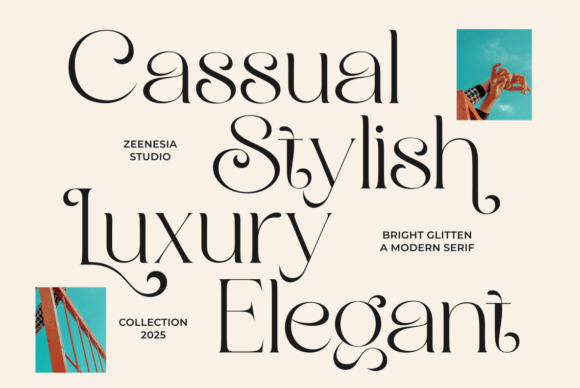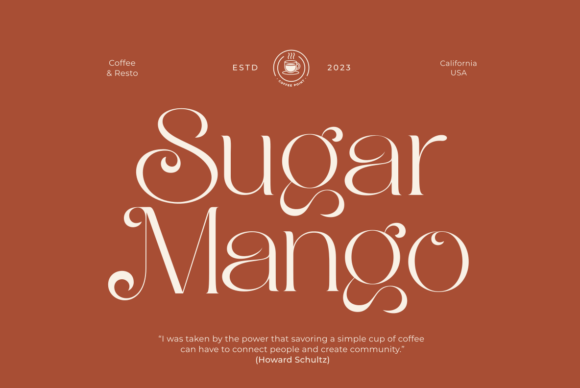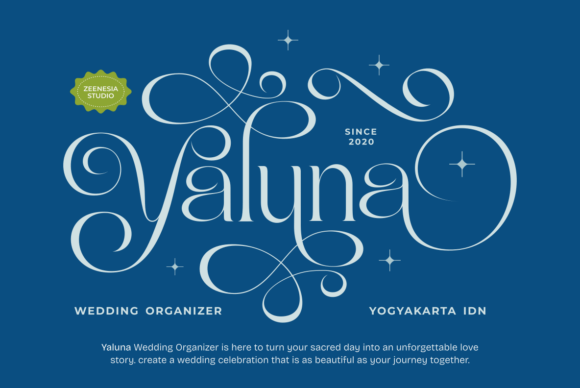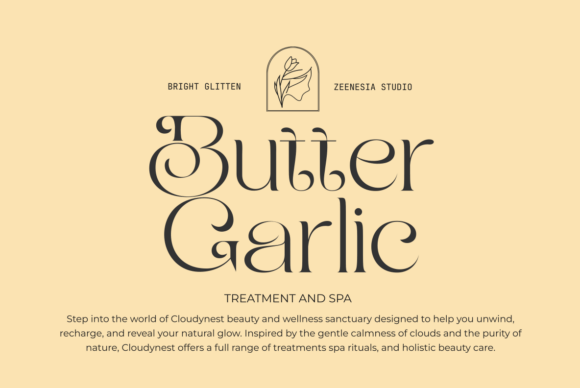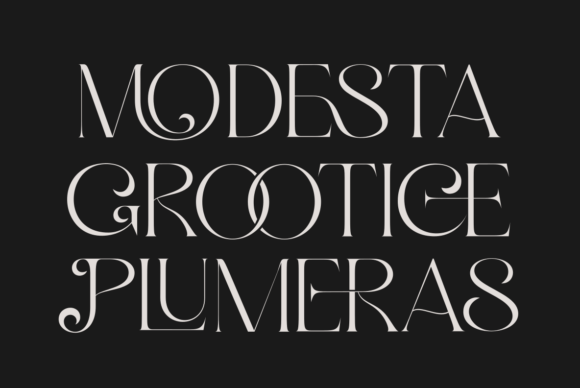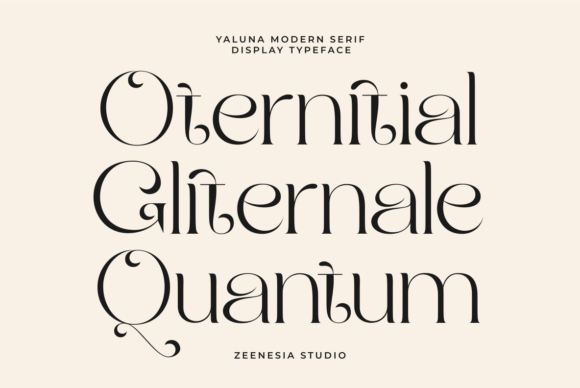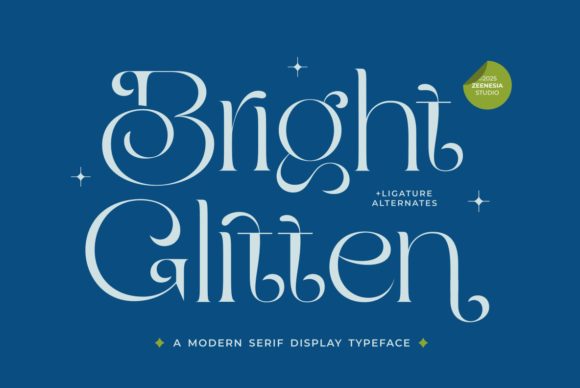
Introducing Bright Glitten: The Epitome of Elegance and Radiance in Typography
Step into the world of elegance and radiance with Bright Glitten, a modern serif display typeface that is designed to shine in every project. This stunning font is the perfect blend of sophistication and creativity, making it an ideal choice for designers and crafters looking to add a touch of luxury to their work.
A Masterpiece of Modern Typography
Bright Glitten is a thoughtfully crafted typeface that boasts graceful curves, stylish ligatures, and refined alternates. Each letter is meticulously designed to capture the perfect balance between sophistication and creativity, making it perfect for a wide range of applications, including branding, editorials, logos, and high-end packaging.
One of the standout features of Bright Glitten is its modern serif structure, which glimmers with personality and gives text a timeless yet contemporary feel. The font’s elegant design makes it perfect for use in fashion campaigns, invitations, and elegant stationery, ensuring that your words shimmer with style.
What sets Bright Glitten apart from other typefaces is its versatility. The font offers a range of alternate characters and special ligatures, providing endless combinations to make your work stand out. Whether you’re looking to add a touch of sparkle to your typography or create a bold statement, Bright Glitten has got you covered.
The font’s stylish ligatures are a particularly noteworthy feature, allowing you to create beautiful, flowing text that is sure to capture the attention of your audience. With Bright Glitten, you can add a level of sophistication and elegance to your designs that is hard to match.
Bright Glitten is a font that is designed with designers and crafters in mind. Its modern serif structure and elegant design make it perfect for use in a wide range of projects, from high-end branding and packaging to editorial design and digital marketing.
Whether you’re a seasoned designer or just starting out, Bright Glitten is a font that is sure to inspire. Its versatility and range of features make it an ideal choice for anyone looking to add a touch of luxury and sophistication to their work.
Key Features of Bright Glitten
- Modern Serif Display Typeface: Bright Glitten is a modern serif display typeface designed to make a statement.
- Stylish Ligatures: The font features stylish ligatures that allow you to create beautiful, flowing text.
- Refined Alternates: Bright Glitten offers a range of refined alternates, providing endless combinations to make your work stand out.
- Luxurious Design: The font’s elegant design makes it perfect for use in high-end branding, packaging, and editorial design.
In conclusion, Bright Glitten is a font that is sure to shine in every project. Its modern serif structure, elegant design, and range of features make it the perfect choice for designers and crafters looking to add a touch of luxury and sophistication to their work.
Whether you’re looking to create a bold statement or add a touch of sparkle to your typography, Bright Glitten is the perfect choice. So why wait? Let your designs glow with confidence and charm with Bright Glitten, the epitome of elegance and radiance in typography.